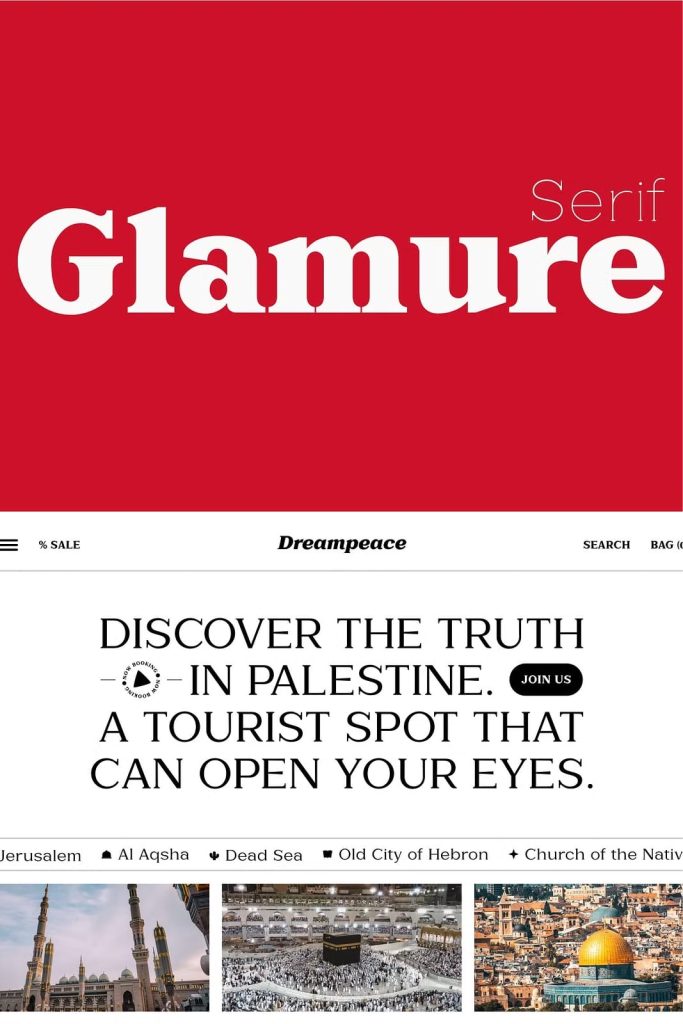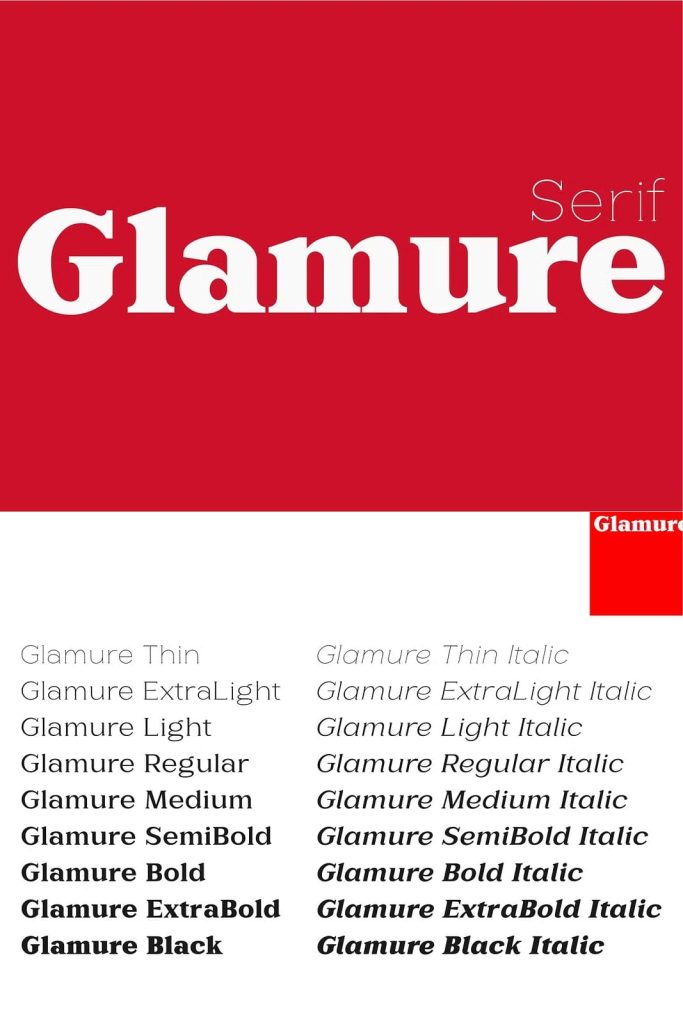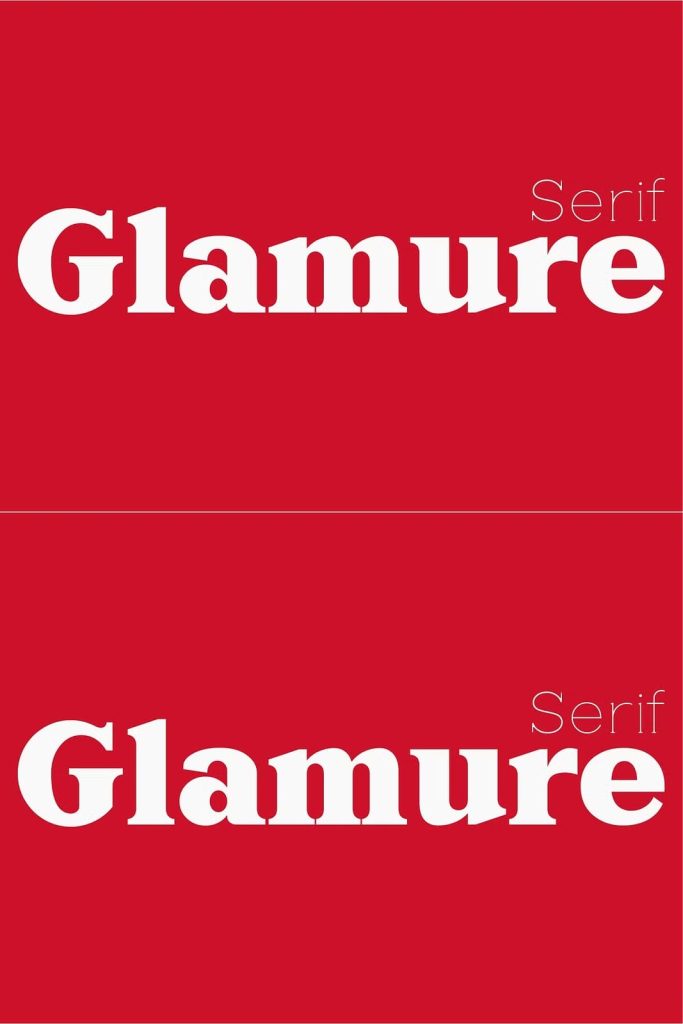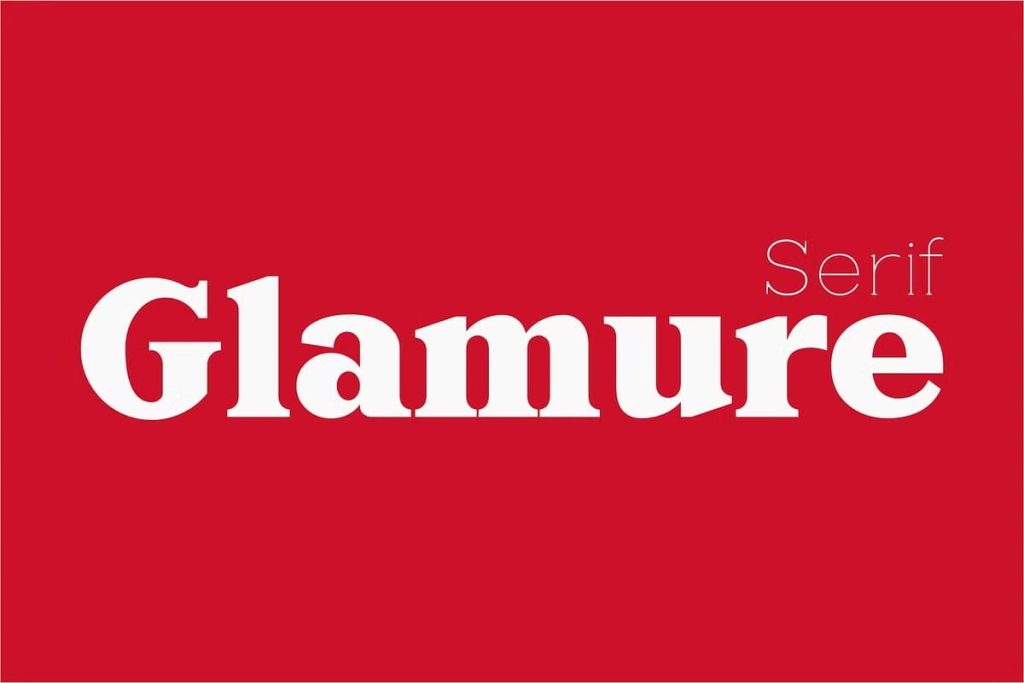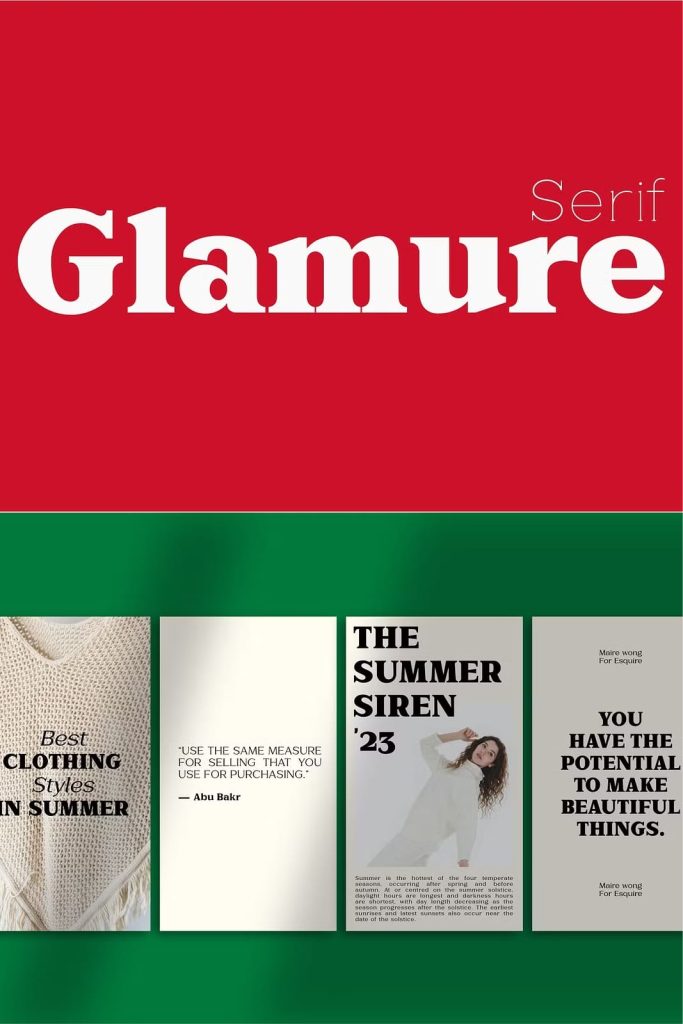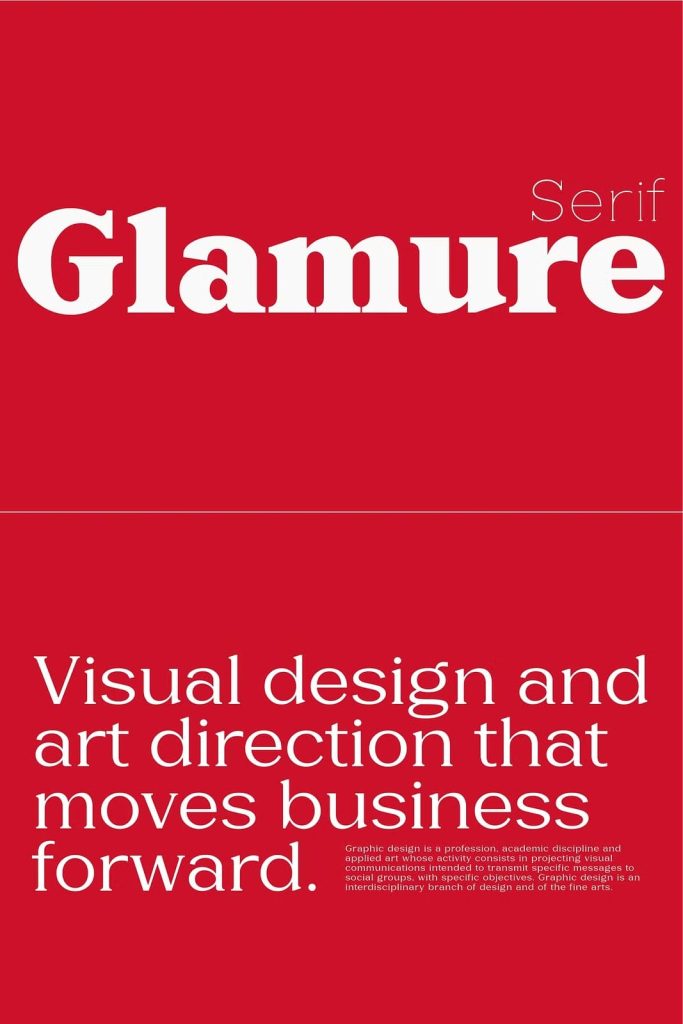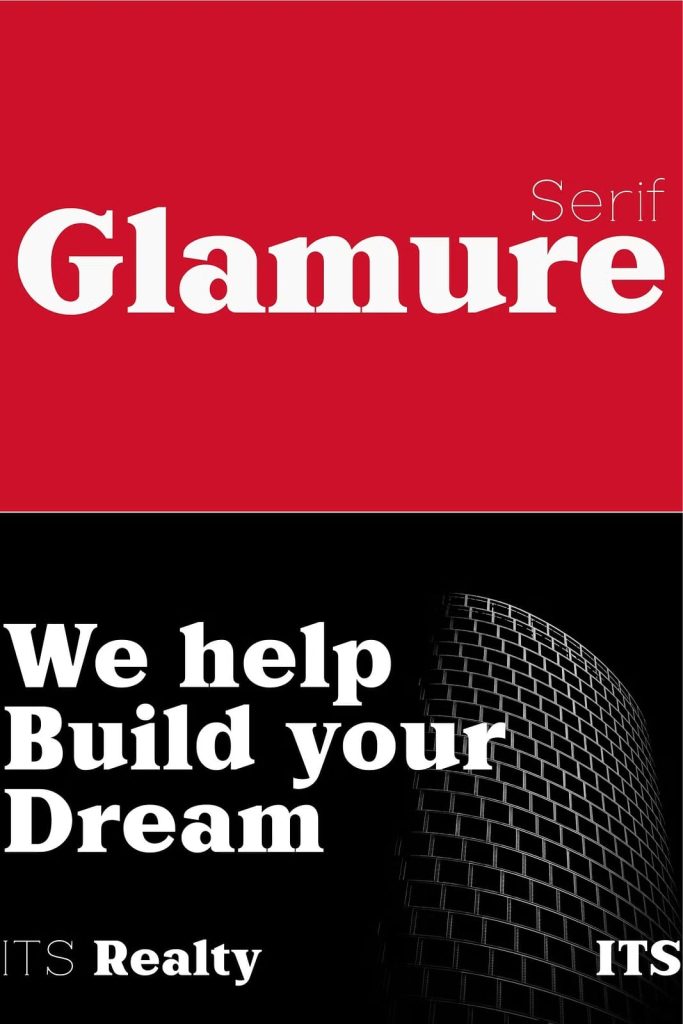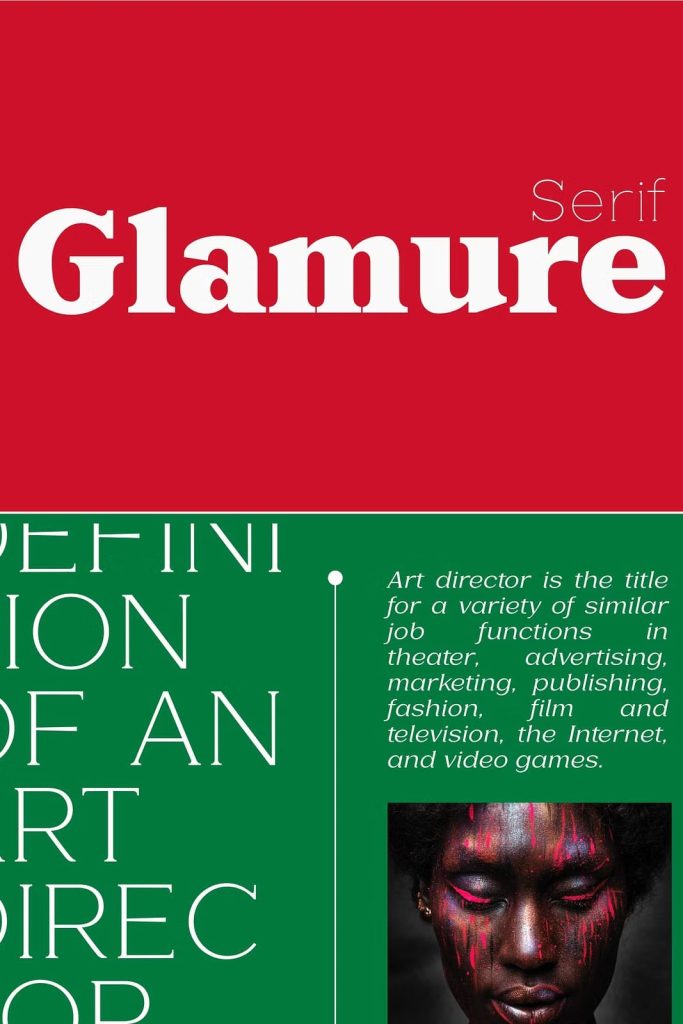
Glamure Serif is inspired by the Myriad font which has often been used by technology companies and governments since the 1990s. Glamure Serif is a clean, sleek and versatile font, using geomatrices to make this font more modern and elegant.
Glamure Serif can function as a title, logo, body copy, subtitle, headline and others.